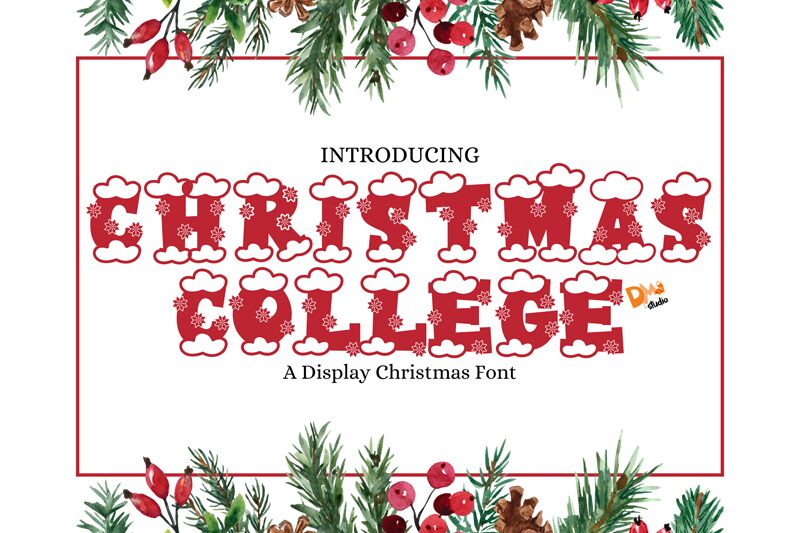
Christmas College font by DM Letter Studio - Dimas Prasetyo is a free holiday font inspired by the Christmas celebration. Only the capital letters involved in the typeface are decorated in a very clean manner. Those elements are themed and indicative of the joyful spirit of the holiday. Christmas College font features include a thick bold character weight in a collegiate style and a sans letter structure.
This font is a perfect choice for Christmas posters, greeting/birthday cards, and personal holiday projects. Additional possible use cases include marketing material for a holiday sale, signs, display typography, digital artwork, social media posts, and covers for Christmas magazines or books.